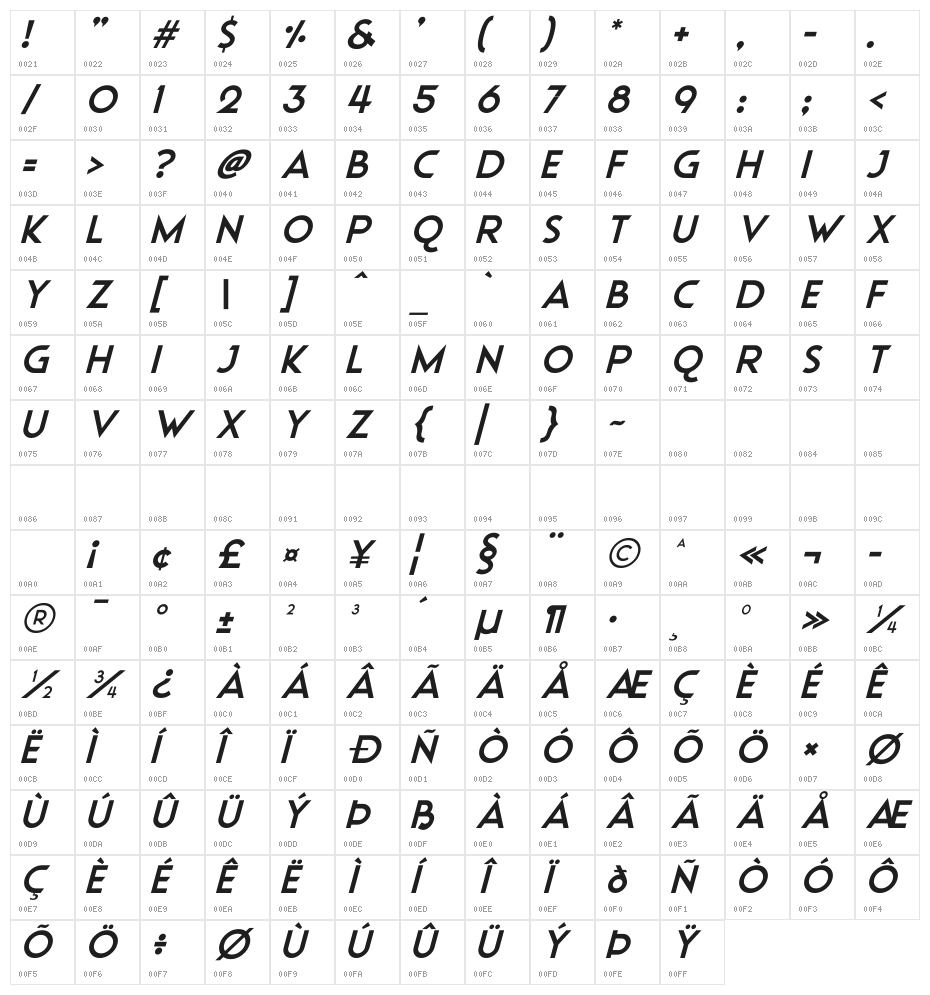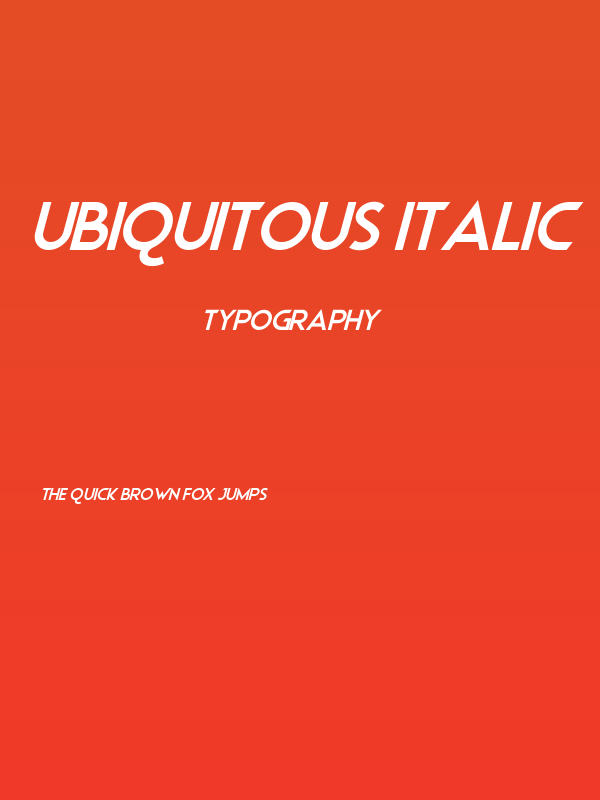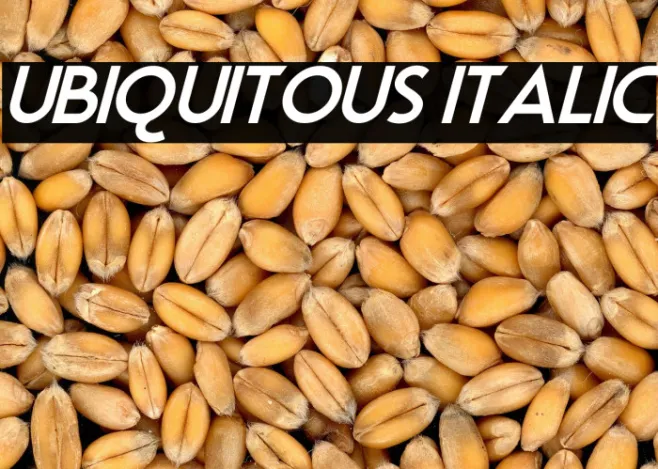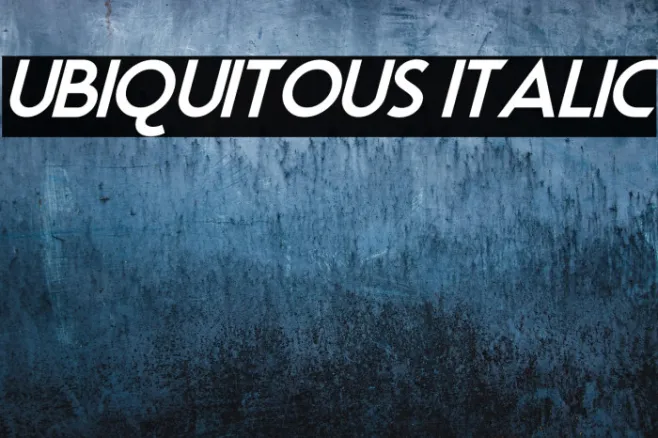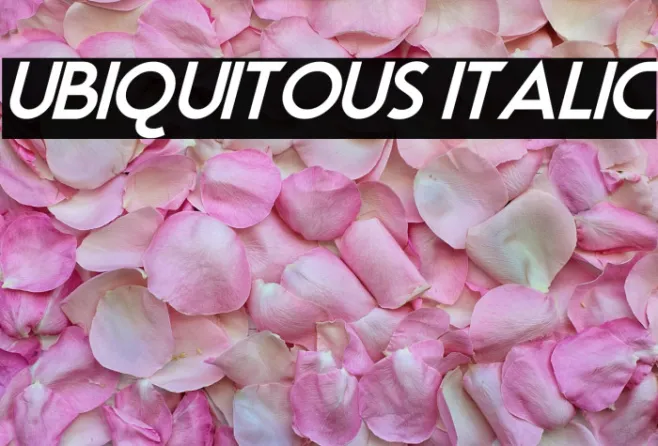
Ubiquitous Italic Font
Ubiquitous Italic Description
This font features a sleek and modern italic style, characterized by its dynamic and forward-leaning slant. The letters are bold and confident, with smooth curves and sharp edges that create a sense of motion and energy. The uppercase and lowercase letters maintain a consistent style, while the numerals and special characters are designed to complement the overall aesthetic. The font's clean lines and contemporary feel make it versatile for various design applications.